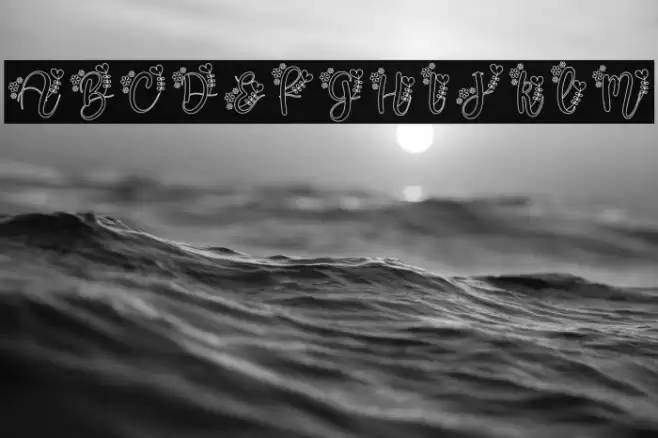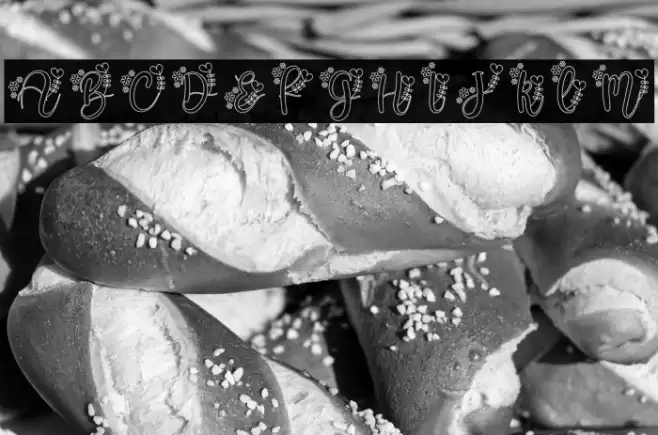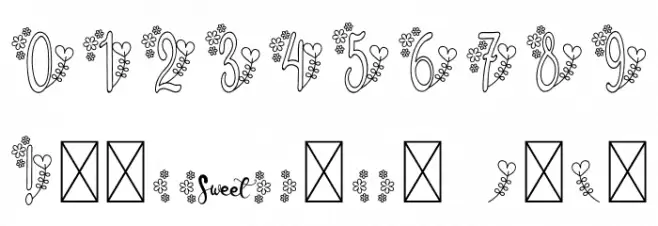
Alissa Monogram Font
Alissa Monogram Description
This font features a whimsical and decorative style, characterized by its playful and artistic design. Each letter is adorned with floral and heart motifs, creating a charming and romantic appearance. The strokes are smooth and flowing, with a consistent line weight that adds to its elegance. The numbers and special characters follow the same decorative theme, ensuring a cohesive look across all elements. This font is perfect for projects that require a touch of creativity and flair, making it ideal for invitations, greeting cards, and other personalized items.
A whimsical and decorative font with floral and heart motifs from Uncategorized fonts.
- Font: Alissa Monogram
- Proposed Projects: Ideal for wedding invitations, greeting cards, personalized gifts, and decorative signage.
- Use Case: Logos, Invitations, Greeting Cards